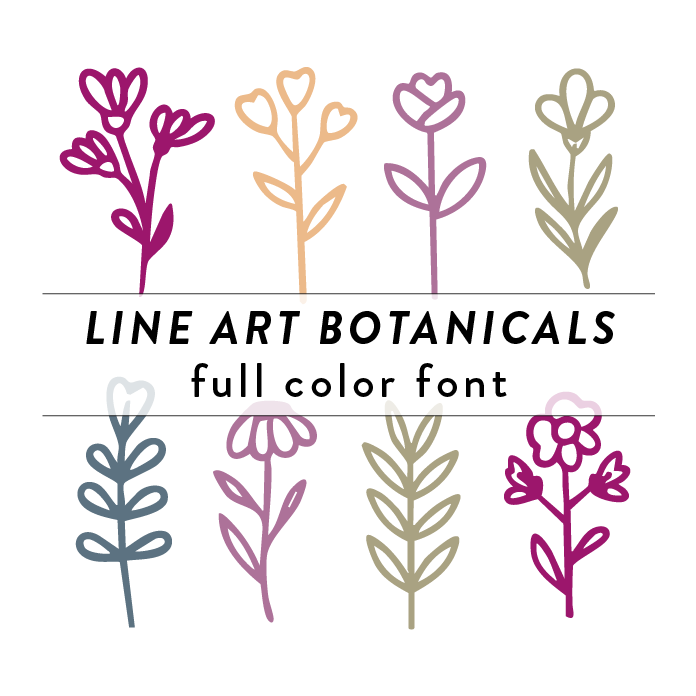
Line Art Botanicals Full Color Font is a decorative font design that features intricate illustrations of flowers, trees, branches, and leaves. The style is detailed and elegant, perfect for adding a touch of nature to any project. This unique font is ideal for use in invitations, stationery, and branding materials for a whimsical and organic look. This font is a OTF craft font that will appear in color only when used with the silhouette software.